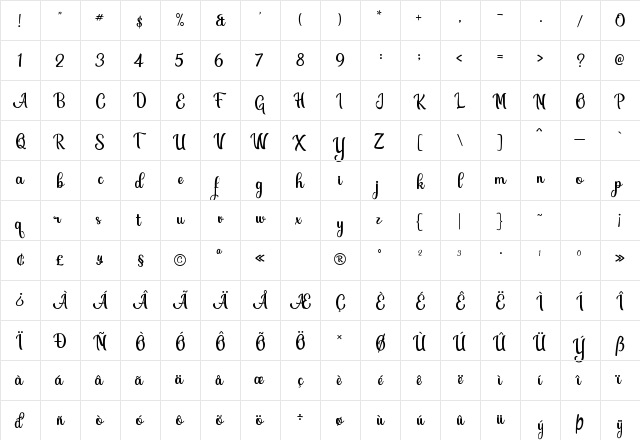
Abigile Regular
| Foundry | Hans Co |
| Designer | Burhan Afif |
Design Context for Abigile Typeface
Abigile is a composed and adaptable typeface that performs quietly and consistently across a wide range of design contexts.